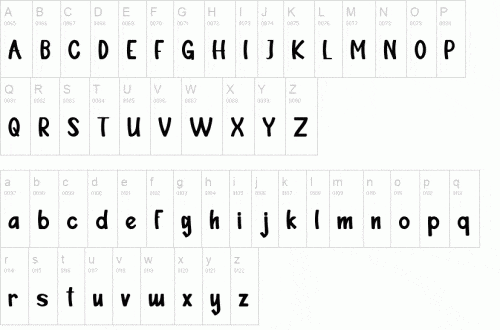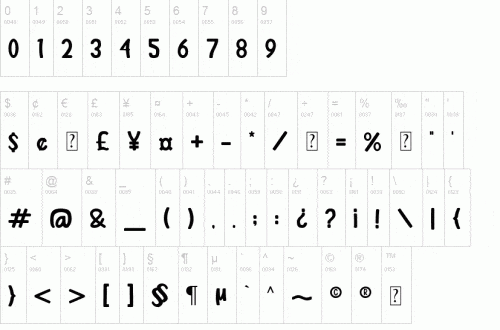
The Geofany is a fun looking display font. Whether you’re using it for crafting, digital designing, presentations or greeting cards making, it’s perfect!
- Designer: Repi Hilmana